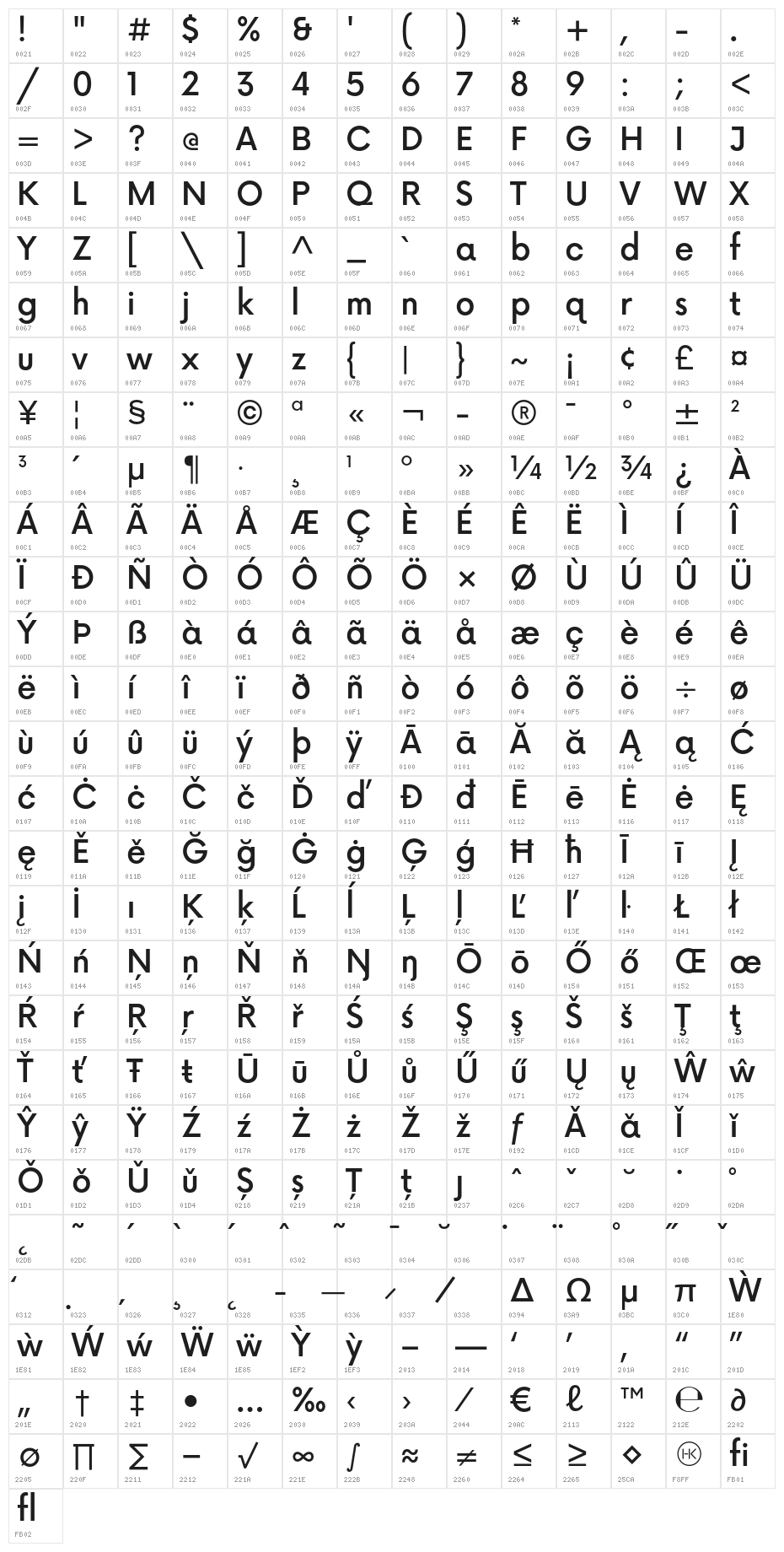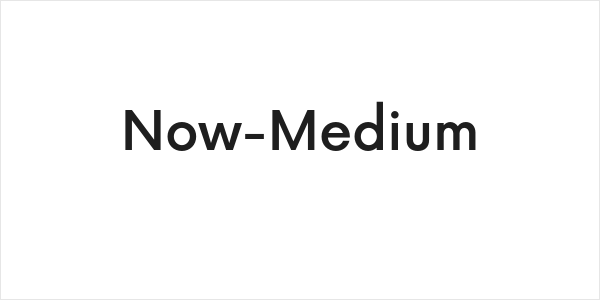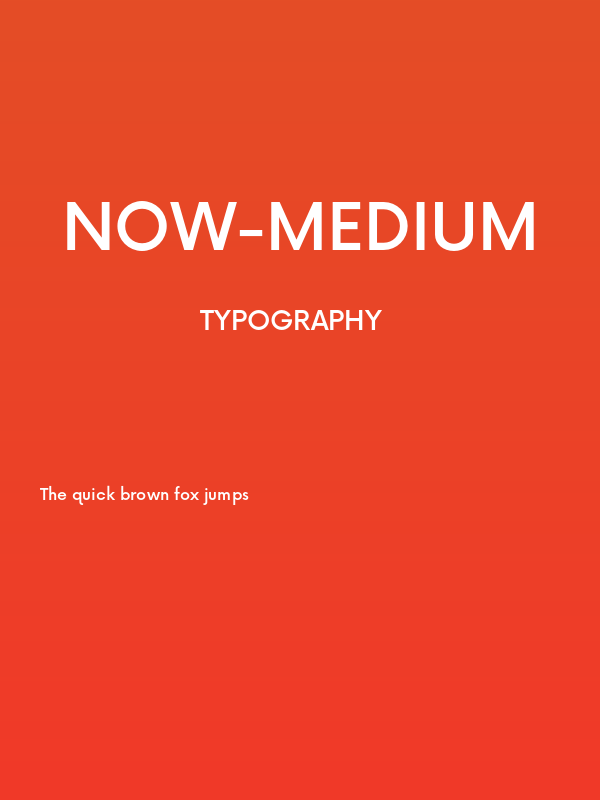
Now-Medium Font
Now-Medium Description
This typeface features a clean and modern sans-serif design, characterized by its geometric shapes and balanced proportions. The uppercase letters are bold and assertive, while the lowercase letters maintain a consistent stroke width, offering a harmonious and readable appearance. The numerals are clear and distinct, ensuring legibility in various contexts. Special characters are well-integrated, maintaining the overall aesthetic. The font's simplicity and clarity make it versatile for a wide range of applications, from digital interfaces to print media.
| Proposed Projects | Ideal for branding, web design, advertising, and editorial layouts due to its clarity and modern appeal. |